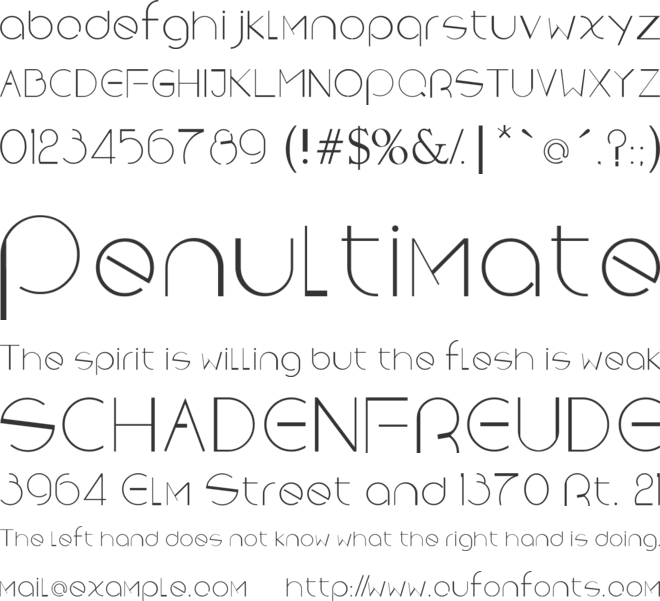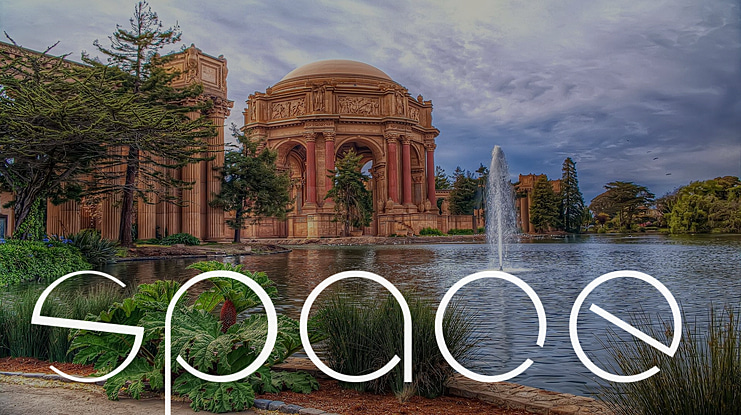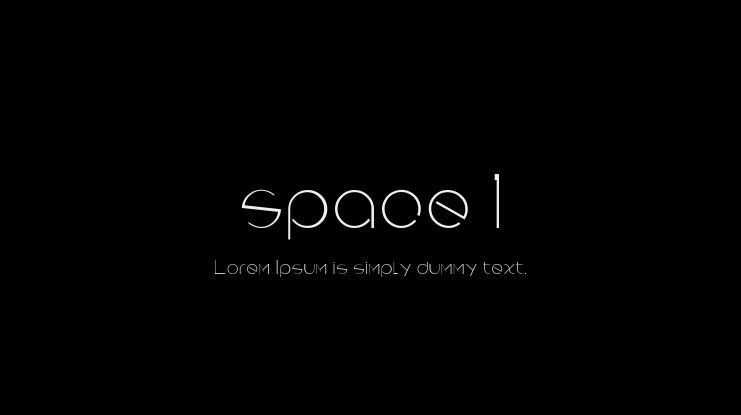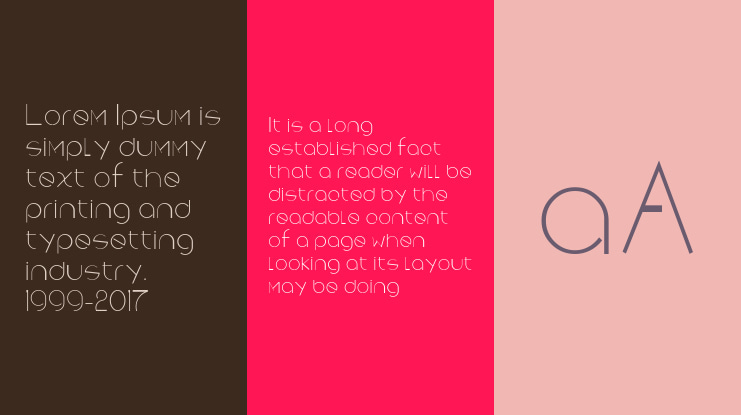
space 1 Font
This font was created for one of my design project when I was studying GD at school in 2011. and now I am planning to start my small design business, I think it is the time to recreate this font. I have Fixed all characters display errors and will update all characters ASAP. hope you guys still like it.